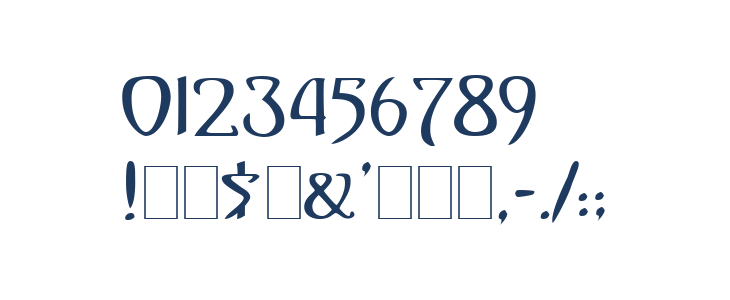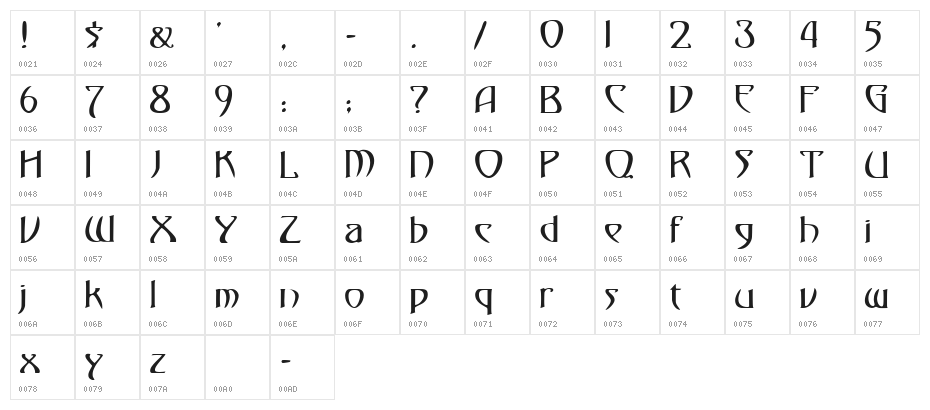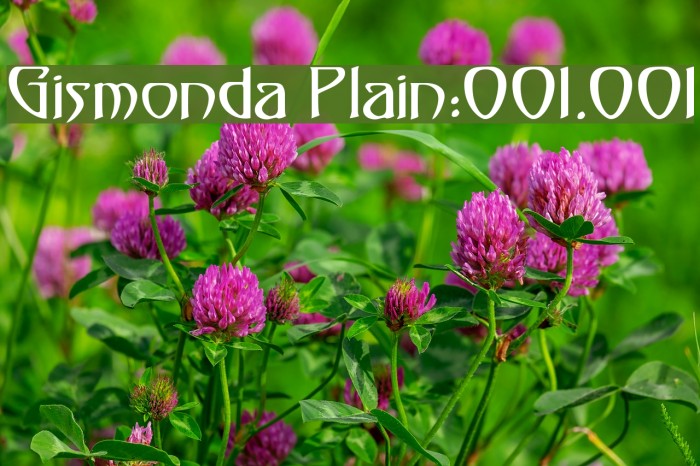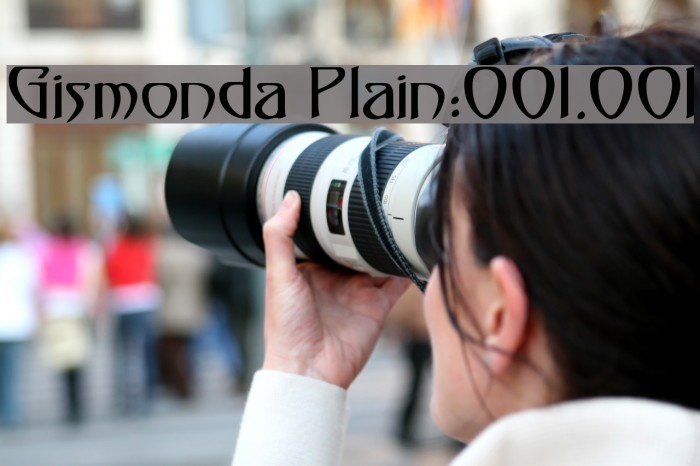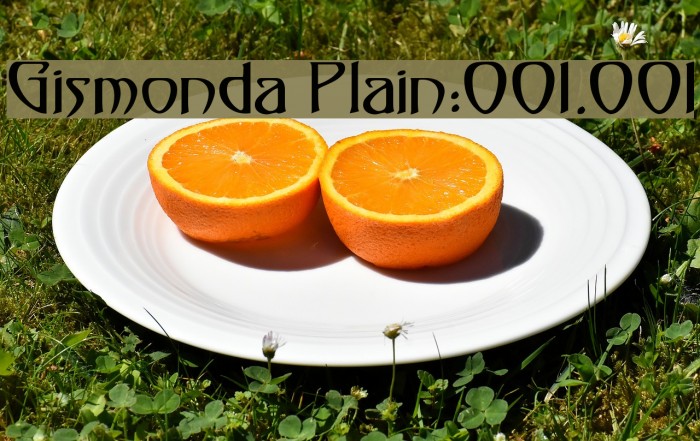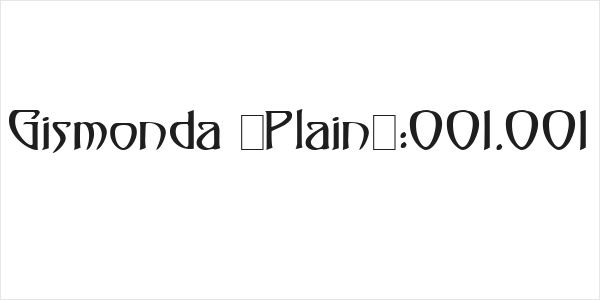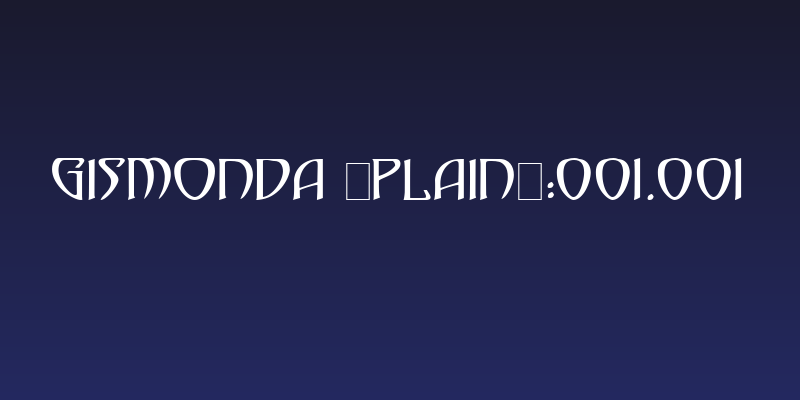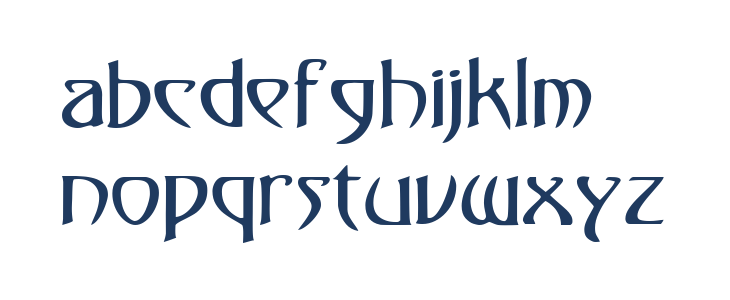
Gismonda [Plain]:001.001 Font
Gismonda [Plain]:001.001 Description
This font features a unique and artistic design, characterized by its sharp, angular serifs and distinctive curves. The uppercase letters have a strong presence with their bold, geometric shapes, while the lowercase letters maintain a consistent style with slightly softer edges. The numerals are equally stylized, offering a cohesive look across all characters. The special characters maintain the same artistic flair, making this font suitable for creative and decorative purposes. Its overall appearance is both modern and vintage, blending traditional serif elements with contemporary design.
| Overall Style | Modern Vintage |
| Proposed Projects | Ideal for branding, poster design, book covers, and any project requiring a distinctive and artistic typeface. |